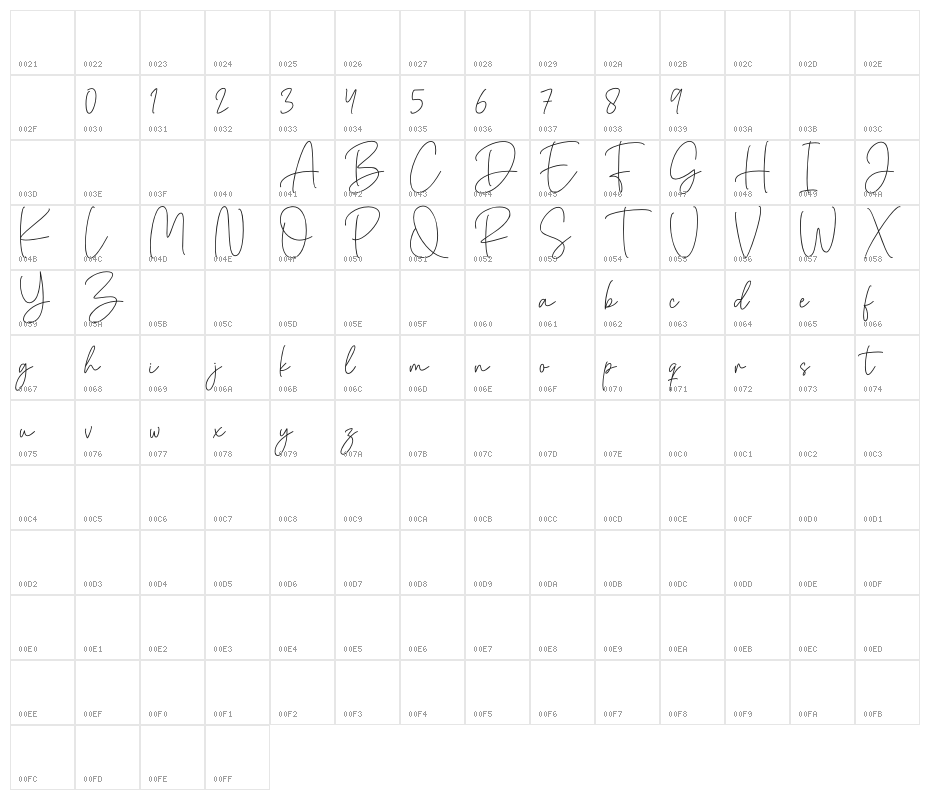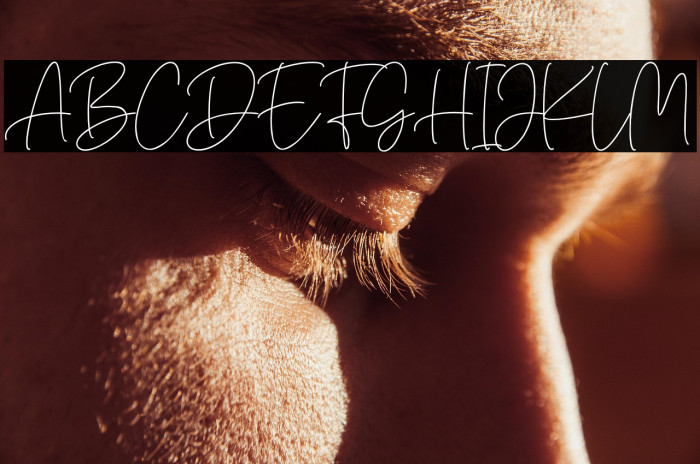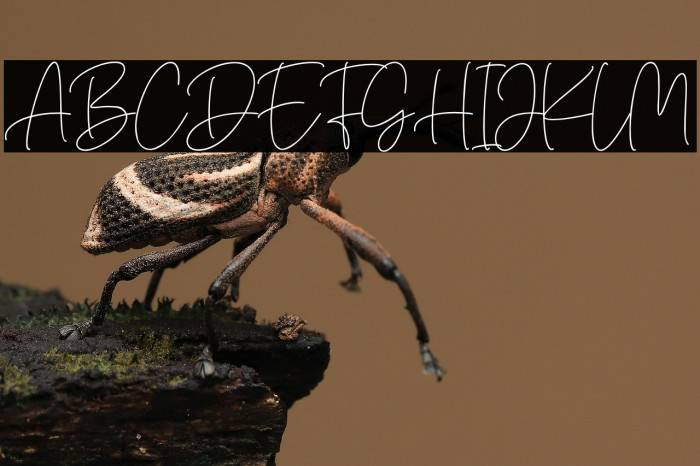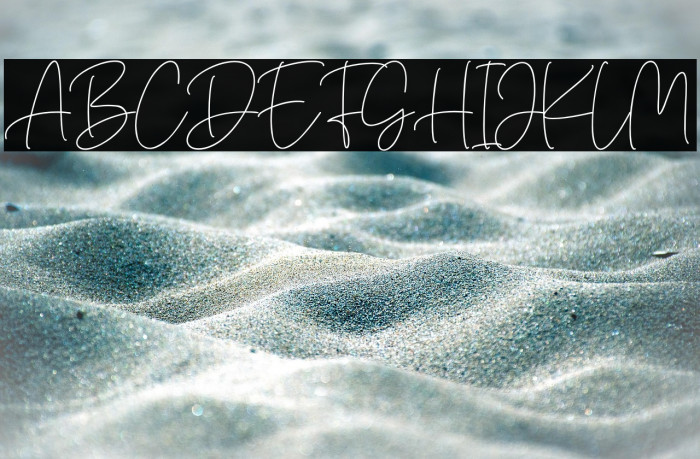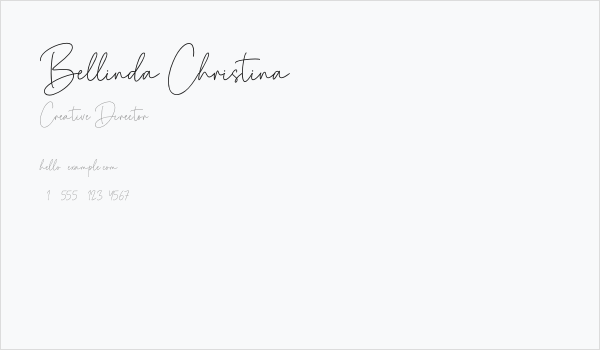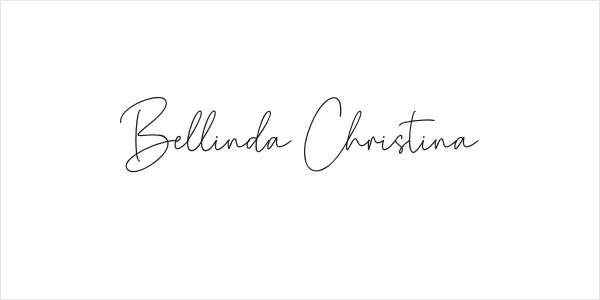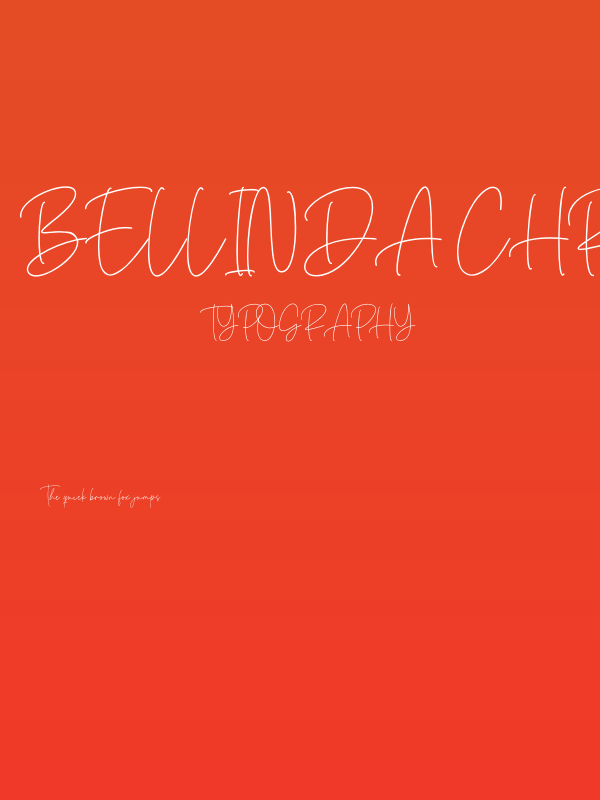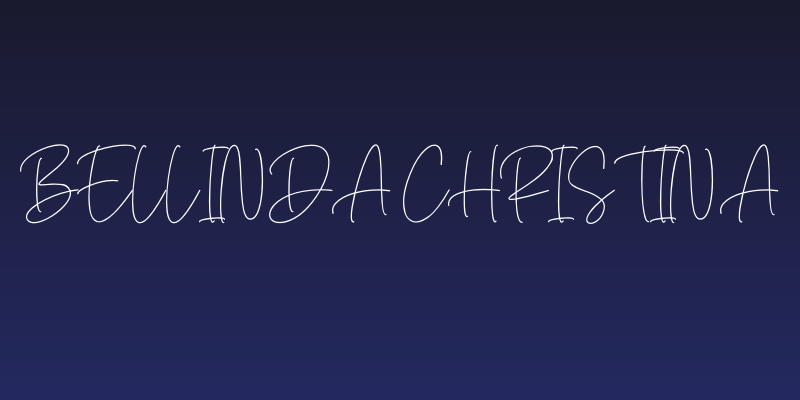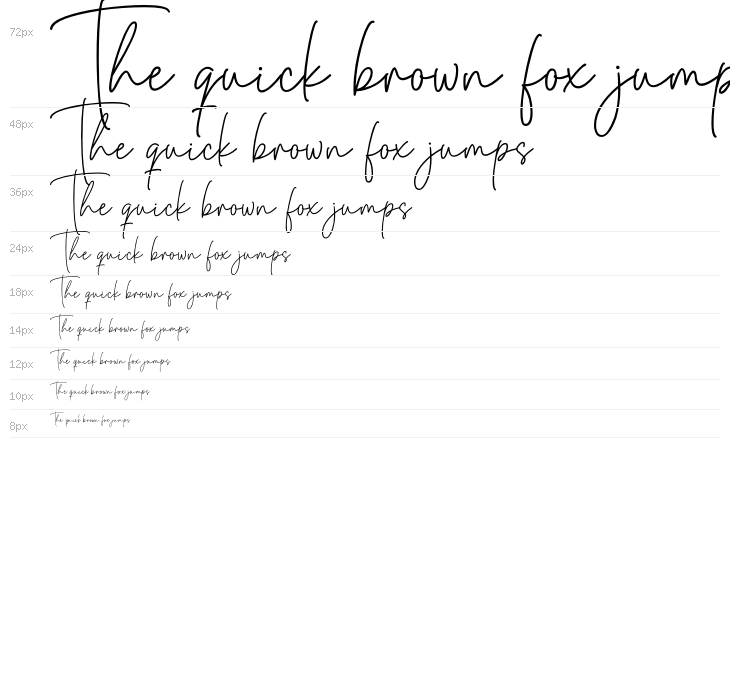
Bellinda Christina Font
Bellinda Christina Description
This font exhibits a graceful and flowing handwritten style, characterized by its elegant cursive script. The uppercase letters are tall and slender, with smooth curves and loops that give a sense of fluidity and motion. The lowercase letters maintain this fluidity, with a slightly more compact form that complements the uppercase. The numerals are consistent with the overall style, featuring similar curves and a balanced height. The special characters blend seamlessly with the alphabet, maintaining the same elegant and airy feel. This font is ideal for projects that require a personal touch, such as invitations, greeting cards, or branding materials that aim to convey sophistication and warmth.
| Overall Style | Elegant, Personal |
| Proposed Projects | Ideal for invitations, greeting cards, branding materials, and personal projects. |